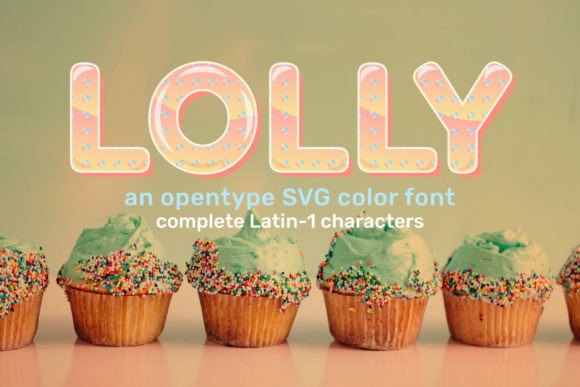
Prepare yourself to be mesmerized by Lolly Font, a chromatic masterpiece that will ignite your creativity and transform your designs into captivating works of art. Step into a realm of visual enchantment where colors dance harmoniously, weaving a tapestry of beauty that will leave you breathless. Lolly Font's enchanting palette will paint your words with vibrant hues, turning ordinary text into extraordinary expressions of art.
Immerse yourself in the boundless versatility of Lolly Font, a font family that adapts seamlessly to a myriad of creative endeavors. Whether you're crafting enchanting wedding invitations that capture the essence of love, designing eye-catching social media posts that command attention, or creating beautiful stationary art that exudes elegance, Lolly Font will effortlessly elevate your creations to new heights.
Unleash your imagination and let the magic of Lolly Font transport you to a world of limitless possibilities. Experience the joy of creating designs that radiate with personality, charm, and an irresistible allure. Lolly Font is the perfect companion for those seeking to make a lasting impression, leaving their audience captivated and inspired.